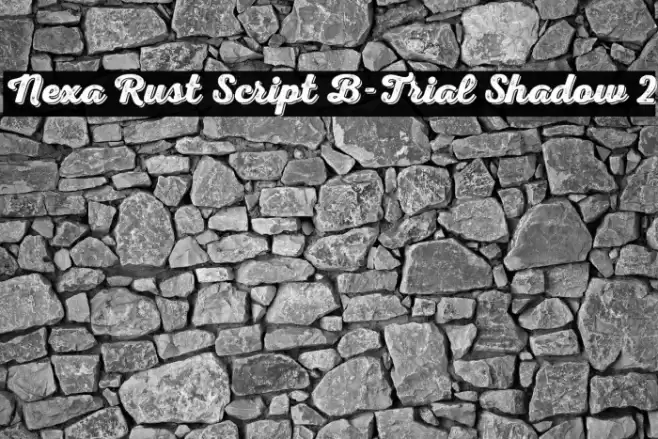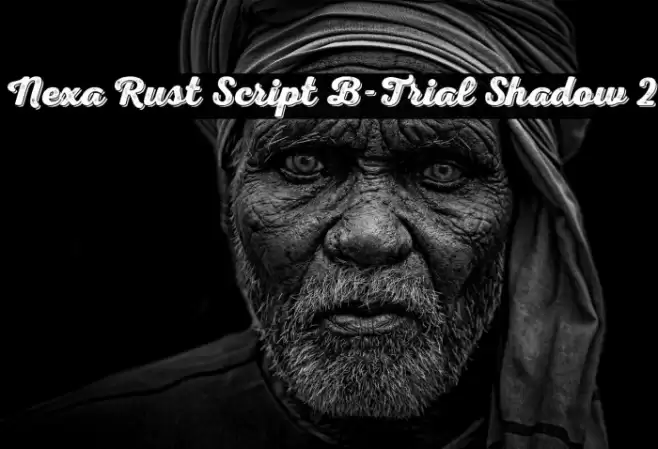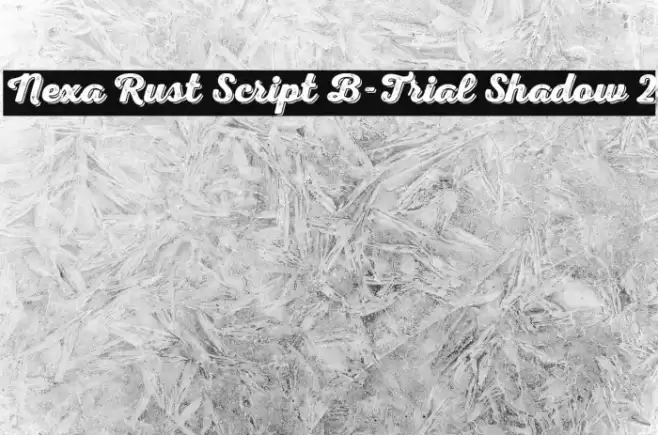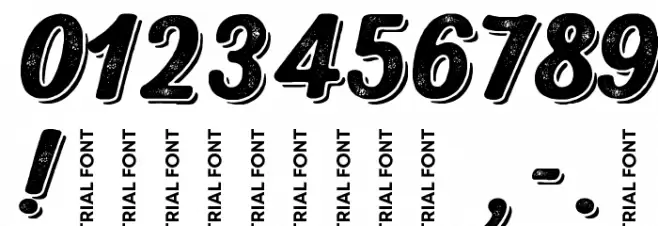
Nexa Rust Script B-Trial Shadow 2 Font
Nexa Rust Script B-Trial Shadow 2 Description
This font features a bold, script style with a distinct shadow effect that adds depth and dimension. The characters are connected, creating a flowing, cursive appearance. The uppercase letters are ornate and slightly larger than the lowercase, which maintains a consistent style. The numbers and special characters follow the same script style, ensuring uniformity across all glyphs. The shadow effect gives the font a vintage and decorative feel, making it stand out in any design. The overall design is playful yet sophisticated, suitable for creative projects that require a touch of elegance.
A bold, script font with a shadow effect, offering a vintage and decorative style from Regular fonts.
- Proposed Projects: Ideal for branding, logos, headlines, posters, and invitations where a decorative and vintage touch is desired.
- Overall Style: Vintage, Decorative